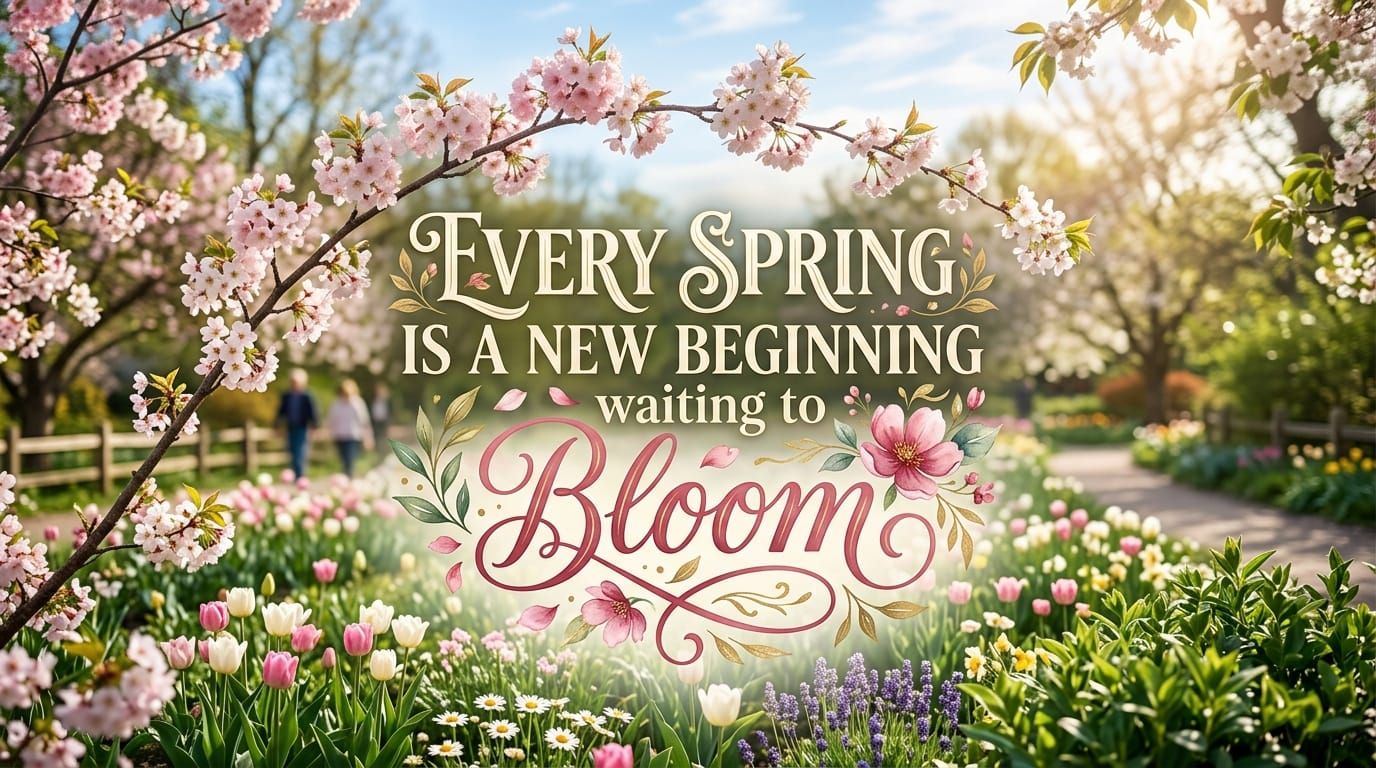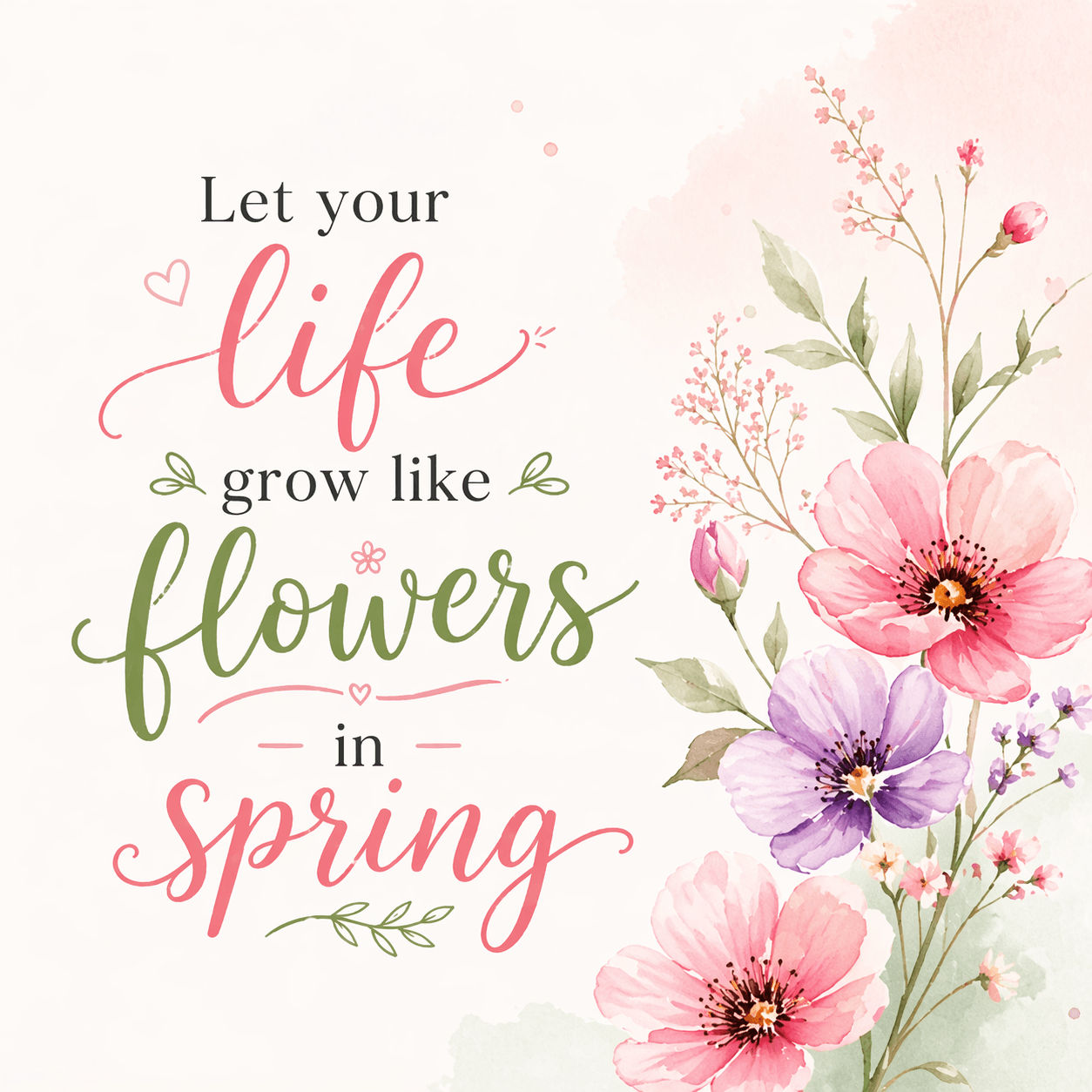
50 Spring Quotes for Positive Vibes and New Beginnings
Spring is a season of renewal, growth, and fresh energy. That’s why many people turn to spring quotes to reflect, reset, and find inspiration. Whether you are journaling, creating content, or simply looking for motivation, the right quotes can help you embrace change and new beginnings.
In this guide, you’ll discover 50 inspiring spring quotes along with creative ideas and font pairing suggestions to present them beautifully. These quotes are perfect for wellness content, journaling, and social media inspiration.
Why Spring Quotes Inspire Growth and Positivity
Reading spring quotes can help shift your mindset and encourage personal growth.
• Fresh perspective
• Emotional clarity
• Positive energy
Using quotes regularly helps you stay focused on growth and renewal.
50 Spring Quotes for Positive Vibes and New Beginnings
Here are 50 inspiring quotes to uplift your mood and mindset:
Fresh Start Spring Quotes
1. Every spring is a new beginning waiting to bloom
2. Let your life grow like flowers in spring
3. A fresh season brings a fresh mindset
4. Start again with the energy of spring
5. New beginnings grow quietly
Positive Energy Spring Quotes
1. Spring reminds us to stay hopeful
2. Let positivity bloom within you
3. Fresh air brings fresh thoughts
4. Growth begins with a positive mindset
5. Spring energy fuels new dreams
Growth and Change Spring Quotes
1. Growth takes time just like spring
2. Change is the beauty of every season
3. Bloom at your own pace
4. Every step forward is progress
5. Small growth leads to big change
Mindfulness Spring Quotes
1. Be present like the calm of spring
2. Slow down and enjoy the bloom
3. Peace grows in quiet moments
4. Nature teaches balance
5. Breathe in fresh beginnings
Motivation Spring Quotes
1. Spring is your reminder to keep going
2. Growth starts with one step
3. Your potential is ready to bloom
4. Keep moving forward
5. Every day is a fresh chance
Self Love Spring Quotes
1. Take time to grow yourself
2. You deserve your own spring
3. Care for yourself like a garden
4. Growth begins with self love
5. Be kind to your journey
Hope and Renewal Spring Quotes
1. Spring brings hope to every corner
2. Renewal starts within
3. Let go and grow
4. Light follows every season
5. Hope blooms again
Nature Inspired Spring Quotes
1. Flowers teach us patience
2. Nature always finds a way
3. Growth is part of life
4. Seasons change and so do you
5. Let your life bloom
Creative Spring Quotes
1. Create something new this season
2. Inspiration grows everywhere
3. Your ideas are ready to bloom
4. Creativity flows like spring
5. Start something beautiful
Simple Life Spring Quotes
1. Enjoy the small moments
2. Life feels lighter in spring
3. Keep things simple and meaningful
4. Happiness grows naturally
5. Live in the moment
Font Pairing Ideas for Spring Quotes
Presenting quotes visually is just as important as the message. Typography plays a key role in creating mood and clarity. Here are font pairing ideas inspired by DM Letter Studio to elevate your quotes designs:
1. Script + Clean Sans (Soft and Elegant Spring Feel)
Primary Font: Spring Baby style
Secondary Font: Modern clean sans like Linova
Spring Baby Font
Effect:
Creates a gentle, flowing, and elegant look, perfect for calm and emotional quotes.
Best for:
• Instagram quotes
• Wellness content
• Personal branding
2. Playful Display + Simple Sans (Light and Cheerful Style)
Primary Font: Gomu Bear
Secondary Font: Simple sans serif like Playwrite
Gomu Bear Font
Playwrite
Effect:
Gives a fresh, joyful, and energetic feel, ideal for uplifting quotes.
Best for:
• Social media posts
• Youth content
• Creative visuals
3. Serif + Minimal Sans (Clean and Timeless Look)
Primary Font: Elegant serif like ROSA
Secondary Font: Thin sans serif like Honeyquill
ROSA - Classy Sans Serif
Honeyquill Font
Effect:
Creates a balanced and refined aesthetic, making your quotes feel more thoughtful.
Best for:
• Editorial content
• Blog visuals
• Print design
4. Handwritten + Neutral Sans (Warm and Natural Feel)
Primary Font: Swirly Note
Secondary Font: Clean neutral sans like Loopela
Swirly Note
Loopela Font
Effect:
Adds a personal and organic touch, perfect for relatable quotes.